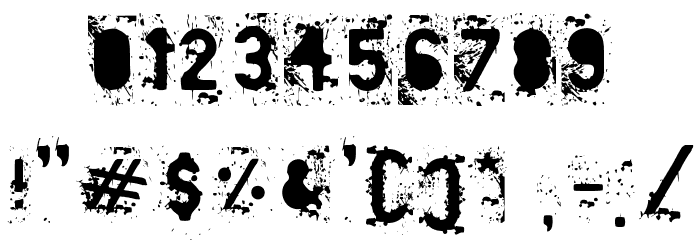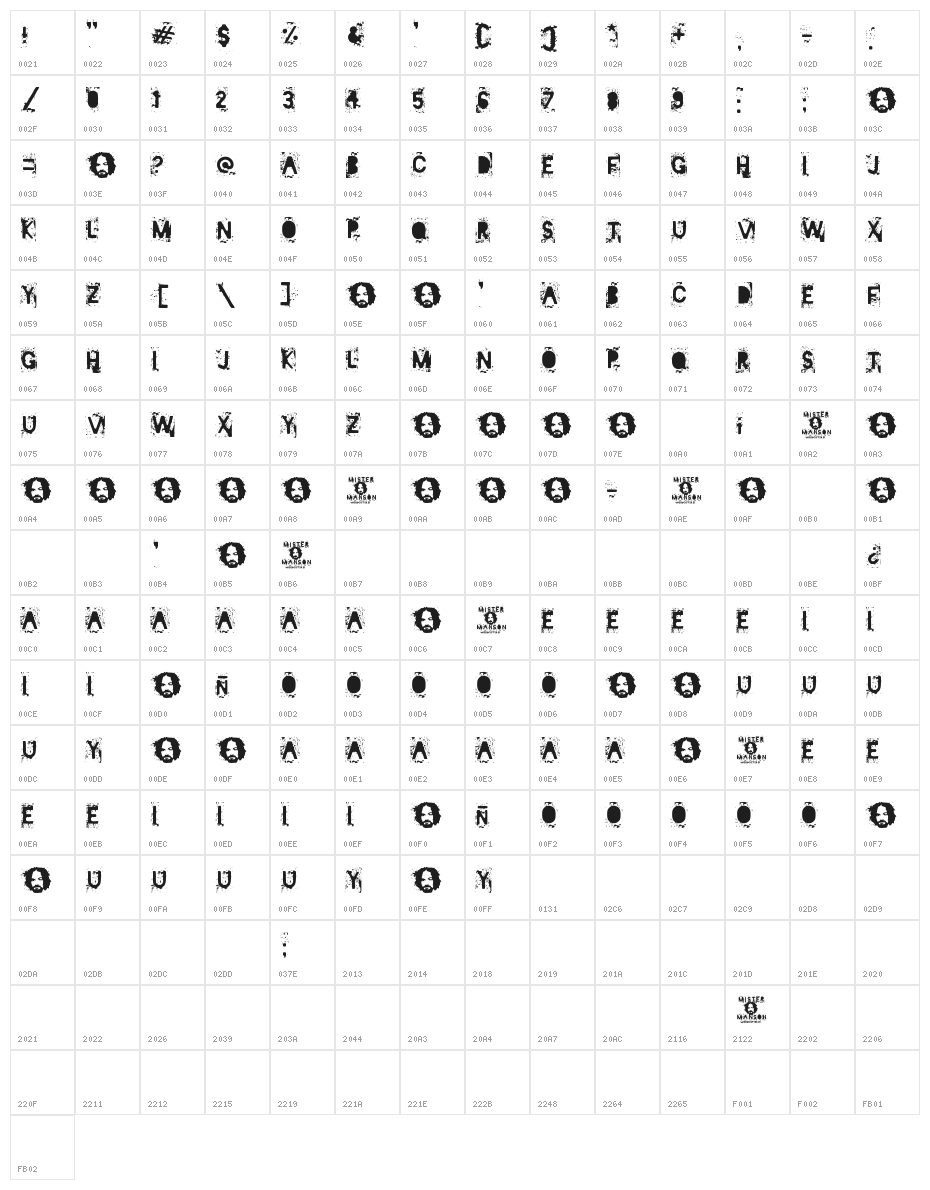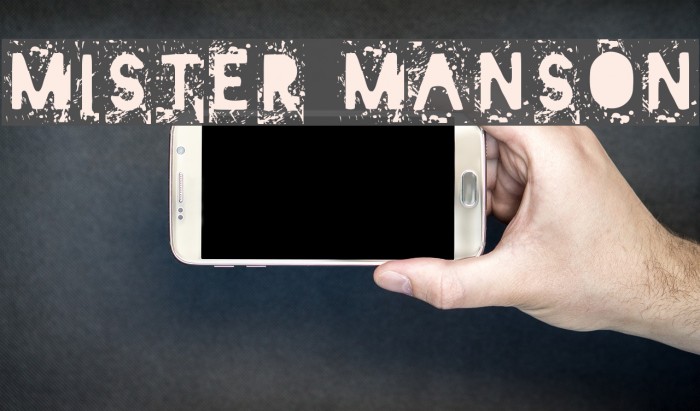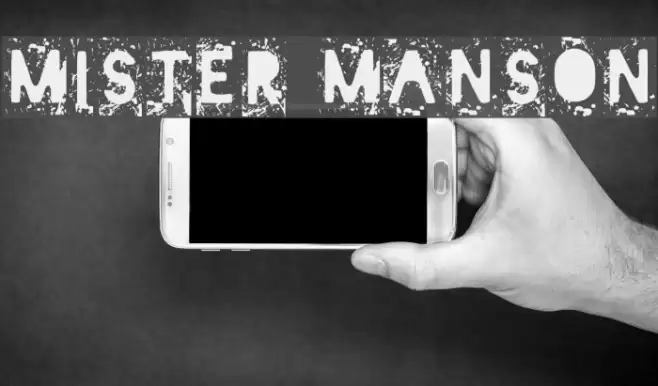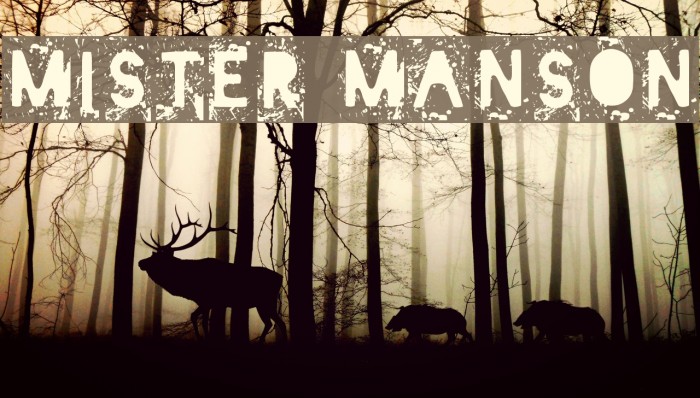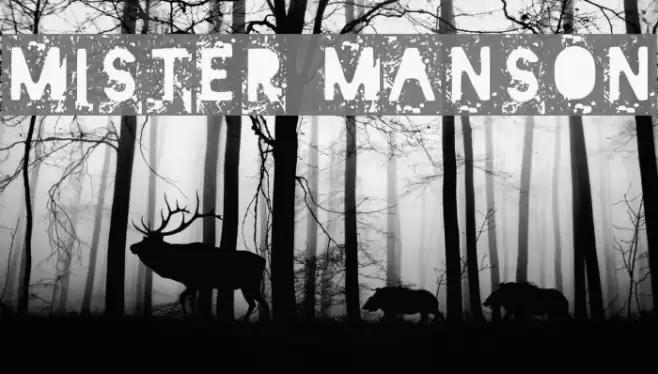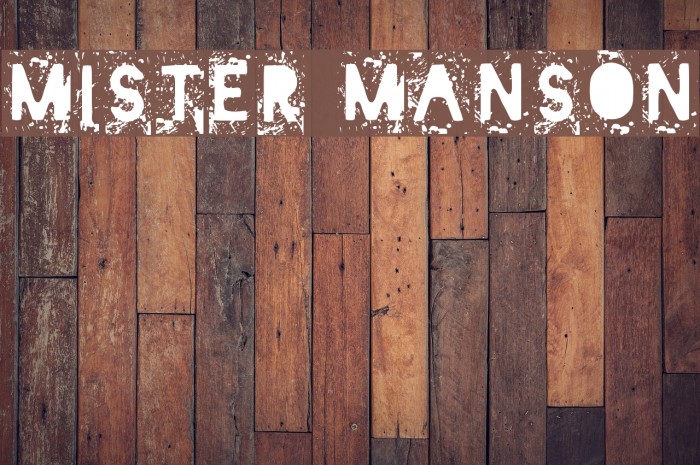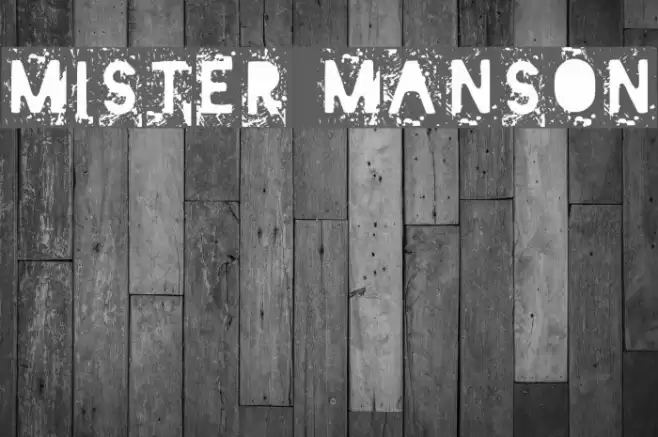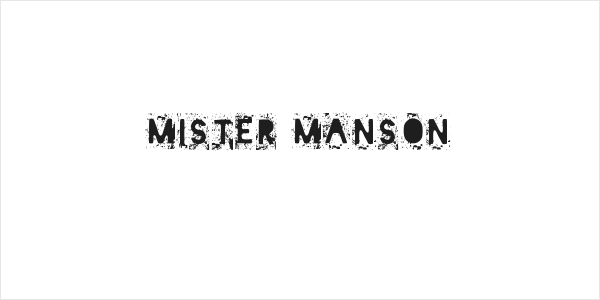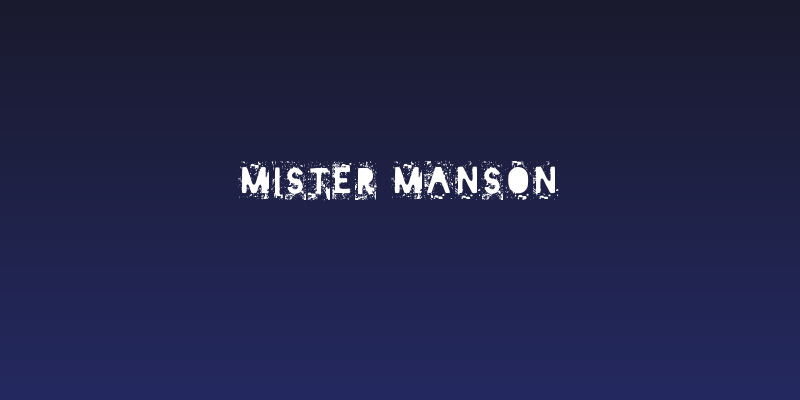
Mister Manson Font
Mister Manson Description
This font features a bold, distressed style with a grunge texture that gives it a rugged and edgy appearance. The characters are uppercase and lowercase letters, numbers, and a selection of special symbols, all of which exhibit a worn, weathered look. The texture appears as if the letters have been eroded or splattered with paint, creating a dynamic and visually striking effect. This font is ideal for projects that require a raw, urban aesthetic, such as music album covers, posters, or branding for alternative or punk-themed events.
| Overall Style | Grunge, Urban, Edgy |
| Proposed Projects | Ideal for music album covers, posters, branding for alternative or punk-themed events. |